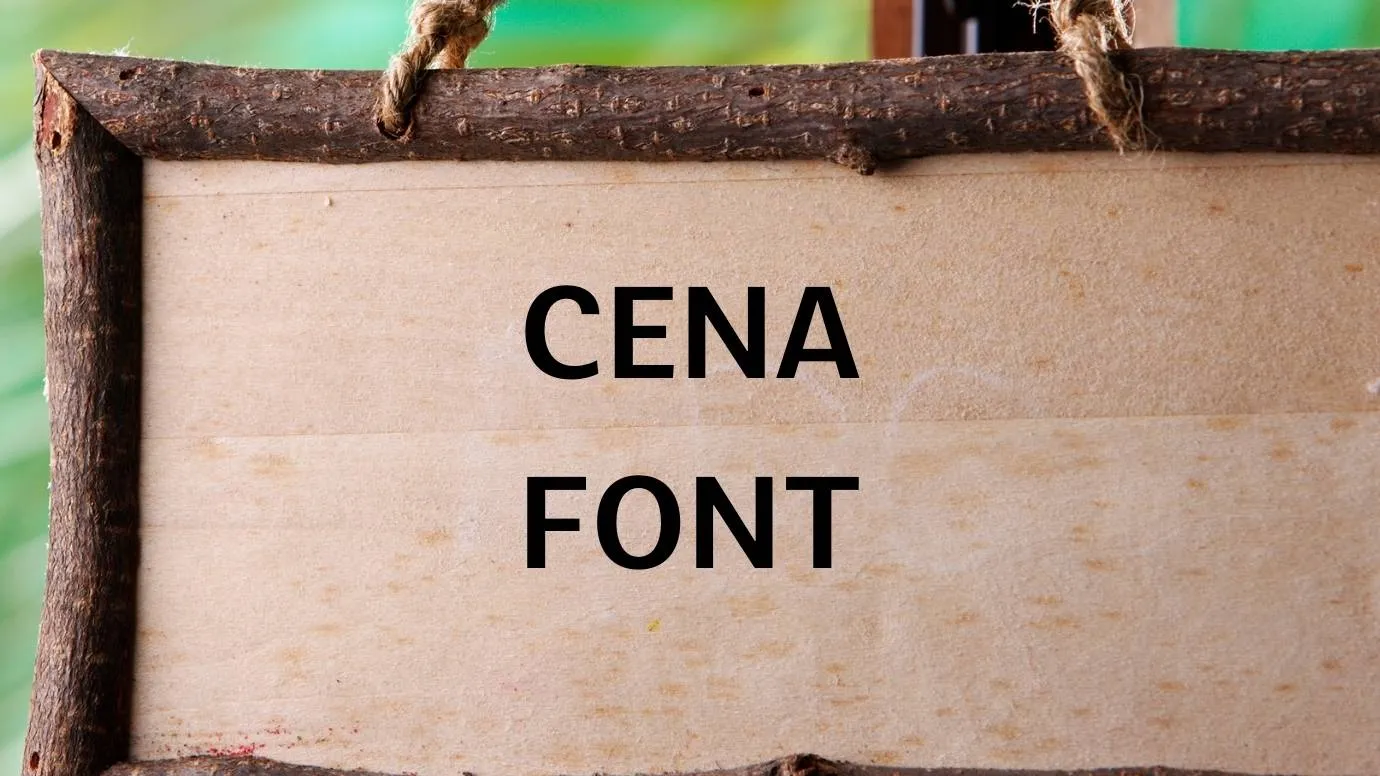
Cena Font Family is a clean and ultra-modern sans-serif typeface family that was designed by Luis Bandovas and released through SevenType foundry. This font family comes in a total of 12 styles and 6 weights including Regular, Light, Italic, Medium, Bold and Black. It was designed based on the idea of the condensed typeface.
Cena Font Family